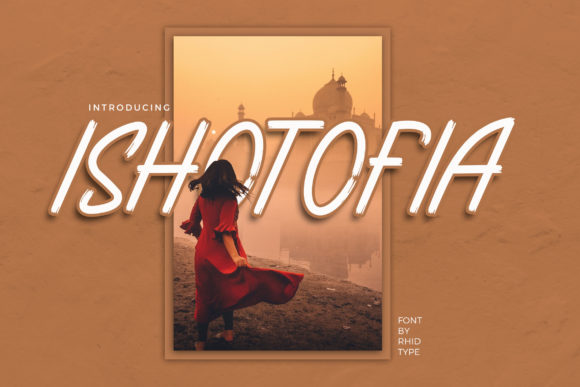
Dive into the captivating world of Ishotopia, a display font that radiates with a touch of friendliness and authenticity. Unleash your creativity and breathe life into your designs with this remarkable font.
Picture yourself crafting captivating posters that command attention and leave an indelible mark on your audience. Ishotopia's bold and distinctive strokes will transform your words into visual masterpieces, captivating every gaze.
Imagine creating business cards that exude professionalism and individuality. Let Ishotopia's elegant curves and sharp edges convey your brand's essence, making a lasting impression on potential clients.
Envision designing logos that embody your brand's spirit and resonate with your target audience. Ishotopia's versatility allows you to mold it to your vision, creating logos that are both memorable and impactful.
Elevate your stationery to new heights with Ishotopia's sophisticated charm. Craft letterheads, envelopes, and notepads that reflect your impeccable taste and attention to detail.
Adorn your typographic quotes with Ishotopia's artistic flair, transforming them into thought-provoking pieces that inspire and ignite imaginations.
Create magazine and book covers that captivate and entice readers. Ishotopia's captivating presence will draw them in, promising a captivating journey within the pages.
Design website headers that welcome visitors with a touch of warmth and sophistication. Ishotopia's inviting curves and bold strokes will create a lasting first impression, beckoning users to explore your digital realm.
Embark on a creative adventure with Ishotopia. Its alluring presence will enhance the visual appeal of your designs, capturing hearts and minds alike. Let your imagination soar and witness the transformative power of this extraordinary font.